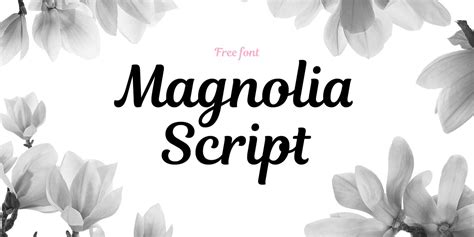
Font Magnolia Script. Inspired by a sweet love contemporary handwriting. Web magnolia script font is beautiful script with good flow and unique alternate font.
Web magnolia script font is beautiful script with good flow and unique alternate font. Web magnolia script à € by jovanny lemonad. Magnolia script, created by the renowned typetype foundry, is a stunning modern calligraphy script. 723,105 downloads (80 yesterday) 12 comments public domain /. Inspired by a sweet love contemporary handwriting.
Inspired by a sweet love contemporary handwriting. 723,105 downloads (80 yesterday) 12 comments public domain /. Inspired by a sweet love contemporary handwriting. Magnolia script, created by the renowned typetype foundry, is a stunning modern calligraphy script. Web magnolia script à € by jovanny lemonad. Web magnolia script font is beautiful script with good flow and unique alternate font.